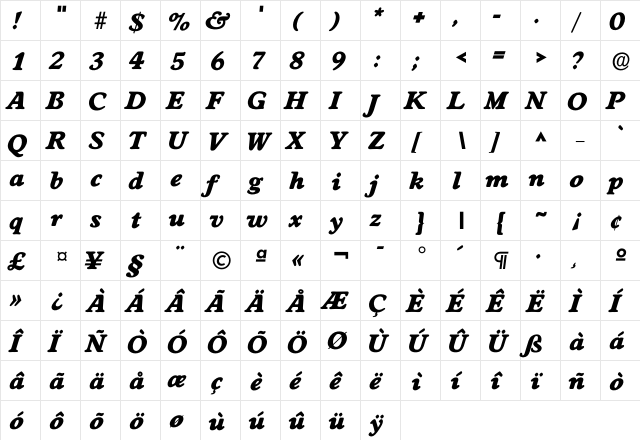
Iworchester ExtraBold
Design Context for Iworchester Typeface
Iworchester is a composed and adaptable typeface that performs quietly and consistently across a wide range of design contexts. Its bold stroke weight gives it real presence on the page.